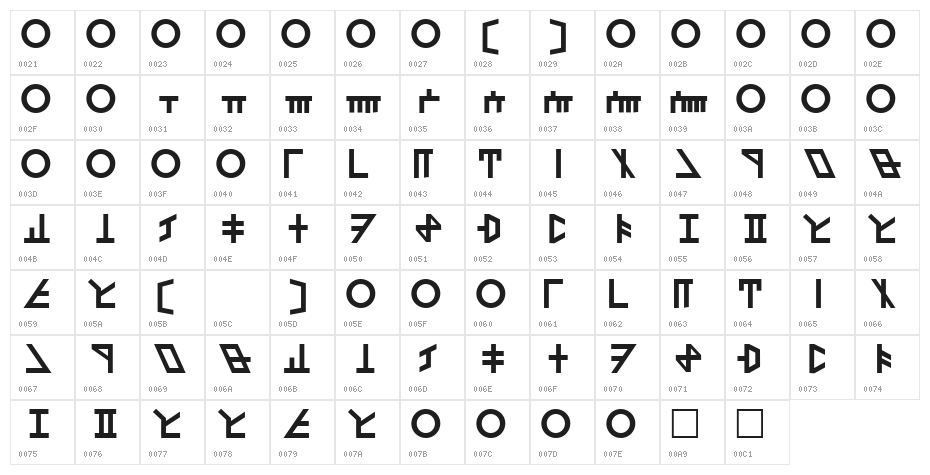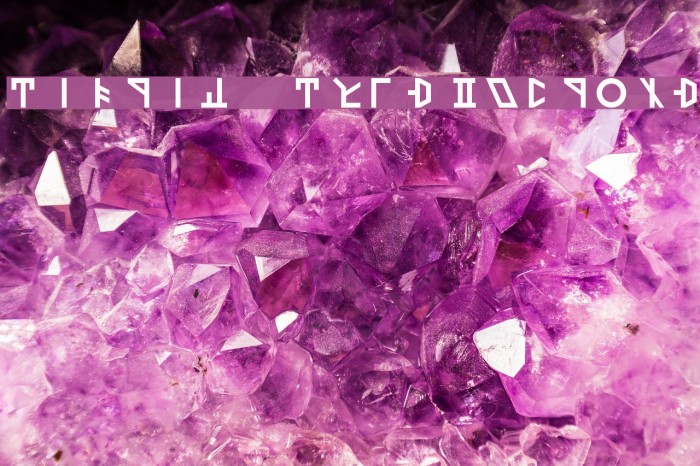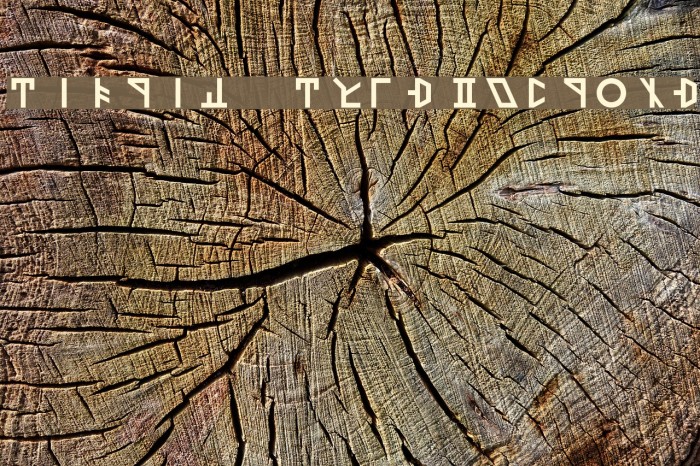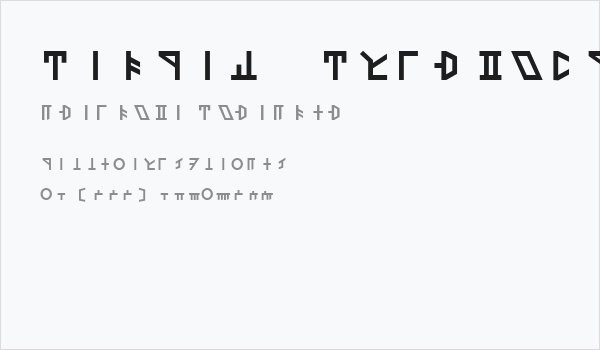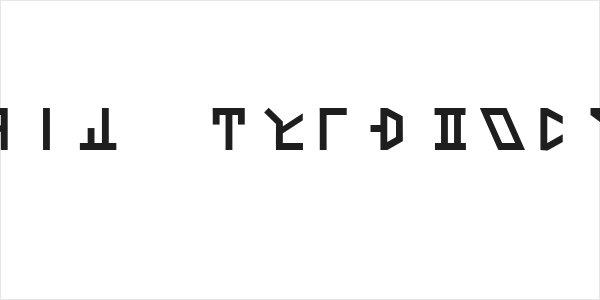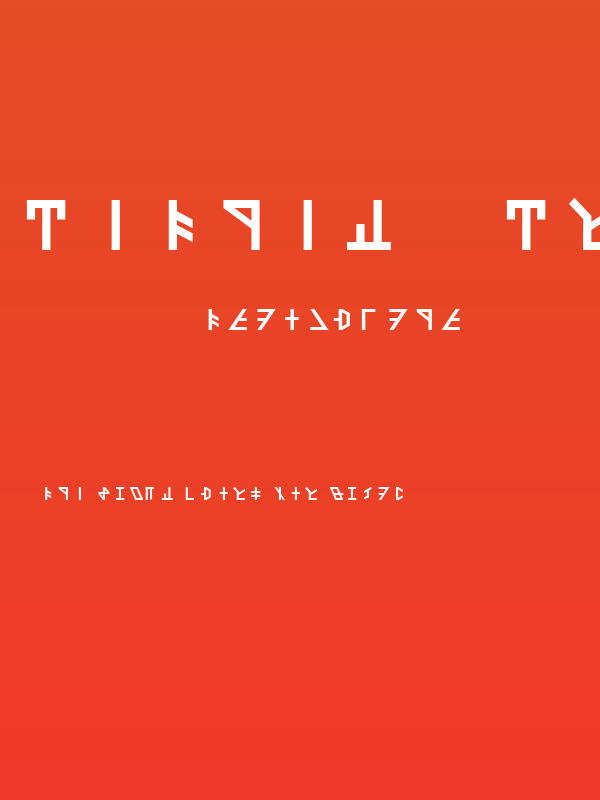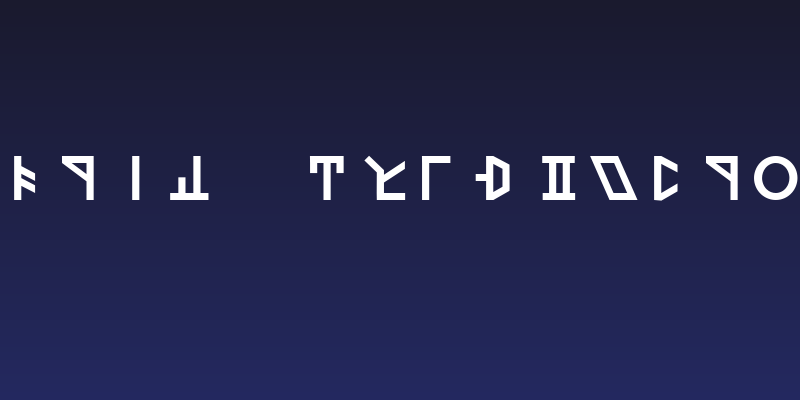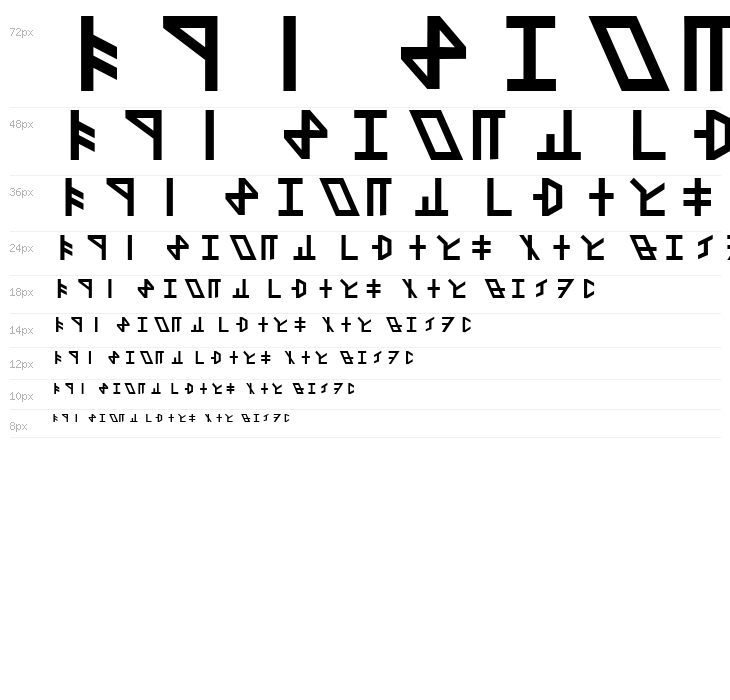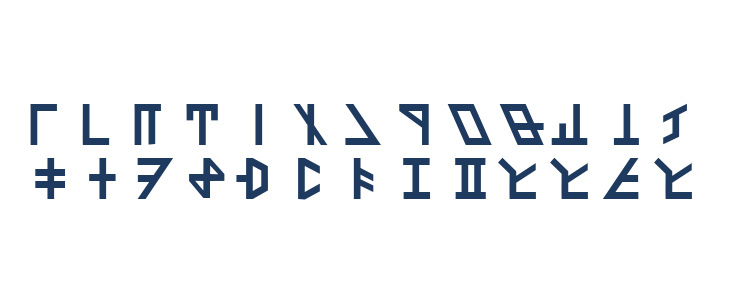
Dethek Dwarvish-FR Font
Dethek Dwarvish-FR Description
This font features a unique, angular design reminiscent of ancient runes or glyphs, often associated with fantasy or mythical themes. The characters are bold and geometric, with sharp angles and straight lines that create a distinct, blocky appearance. This style evokes a sense of mystery and ancient lore, making it ideal for projects that require a touch of fantasy or historical depth. The uniformity in the design gives it a cohesive look, while the bold strokes ensure high visibility and impact.
| Use Case | Logos, Headlines, Themed Events |
| Proposed Projects | Ideal for fantasy-themed projects, game design, book covers, or any creative work that requires a mystical or ancient aesthetic. |